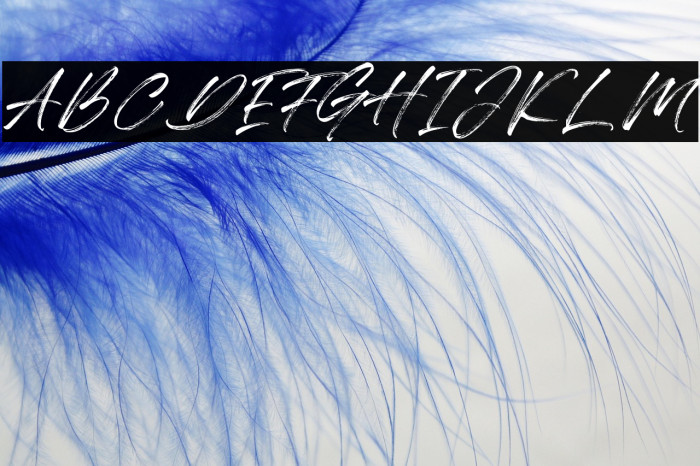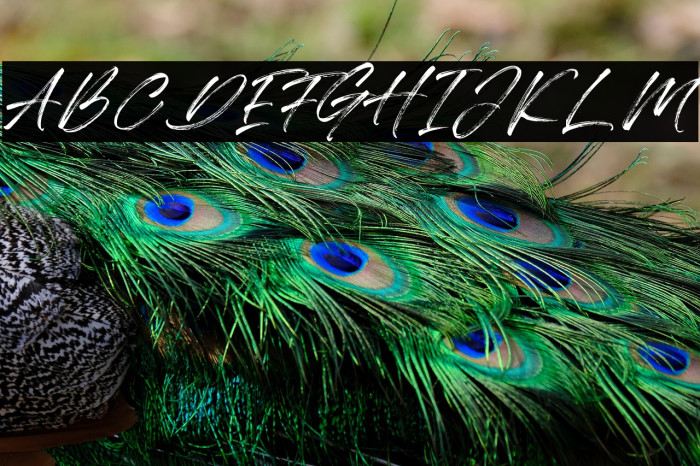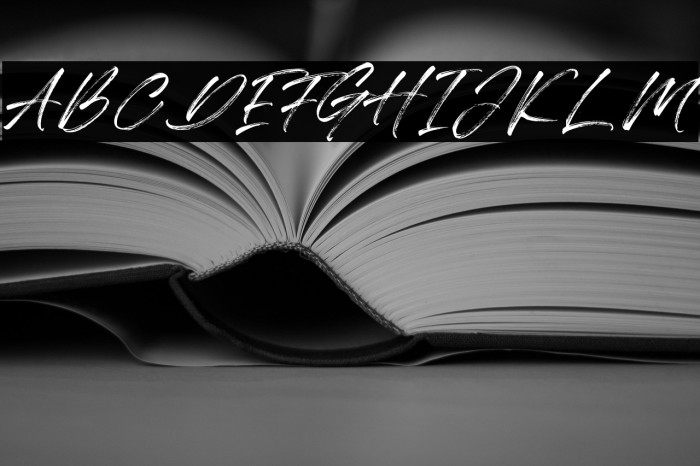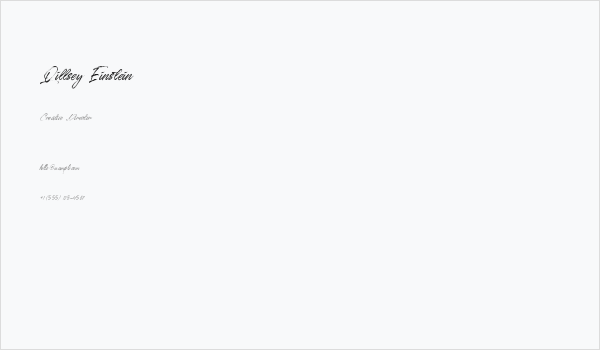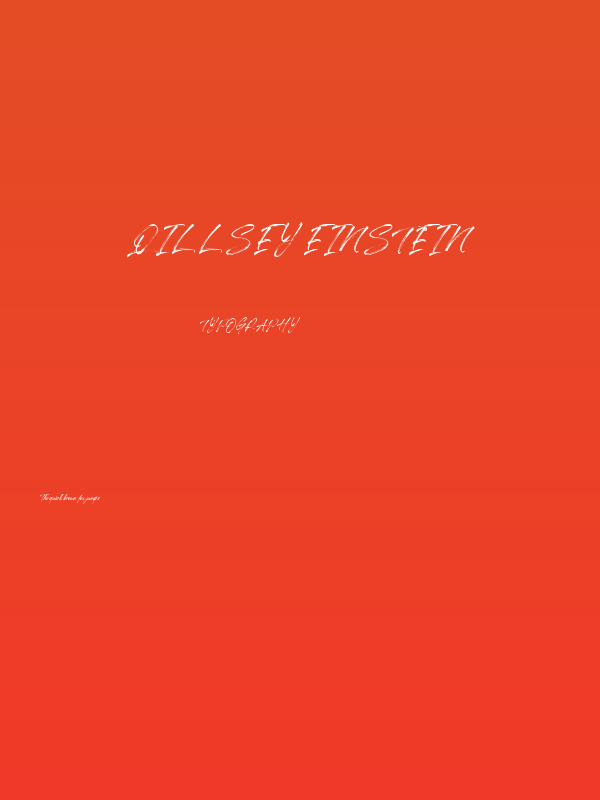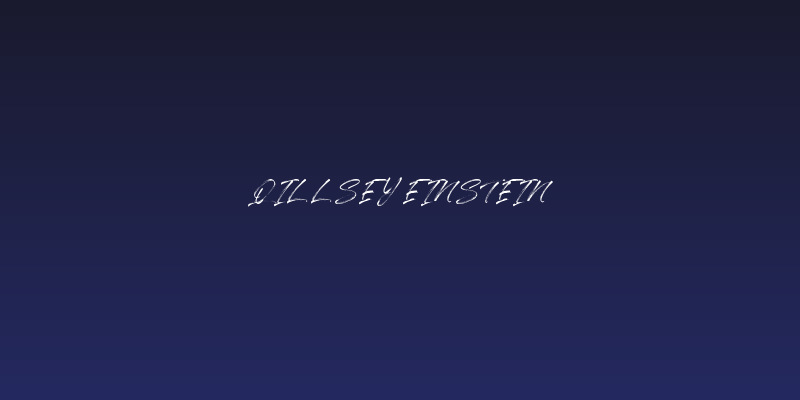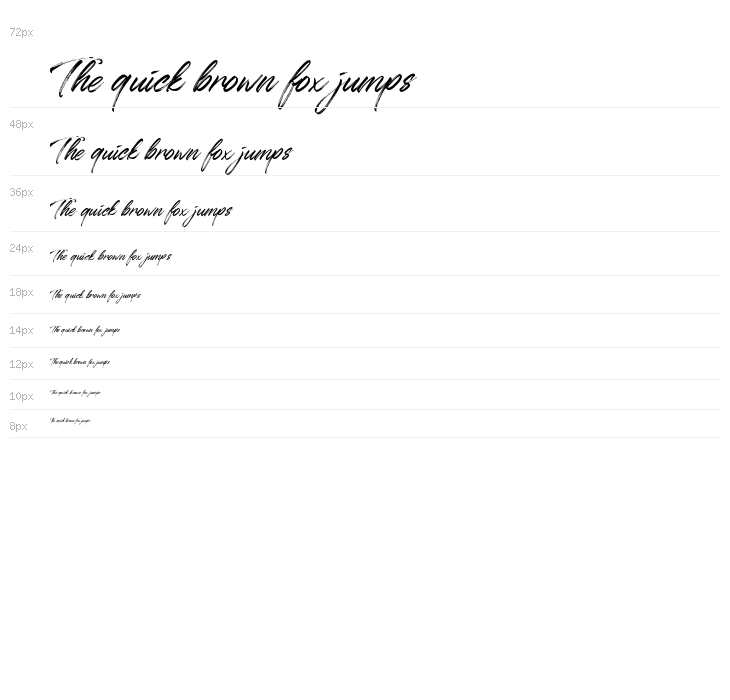
Qillsey Einstein Font
Qillsey Einstein Description
This font exudes a dynamic and expressive style, characterized by its fluid, cursive strokes that mimic the natural flow of handwriting. The letters are elegantly connected, creating a seamless and artistic appearance. The strokes vary in thickness, adding a sense of movement and energy to the text. This font is perfect for projects that require a personal touch or a creative flair. Its unique style makes it suitable for invitations, greeting cards, and artistic branding. The overall look is both sophisticated and approachable, making it versatile for various design needs.
| Proposed Projects | Ideal for invitations, greeting cards, artistic branding, and personal projects. |